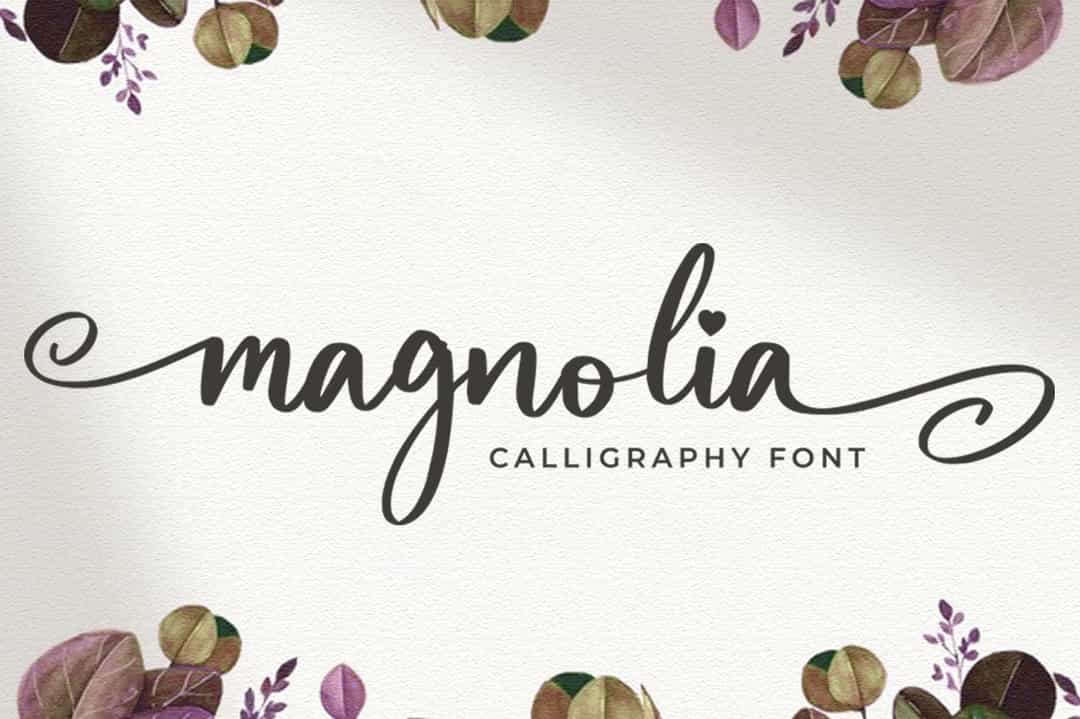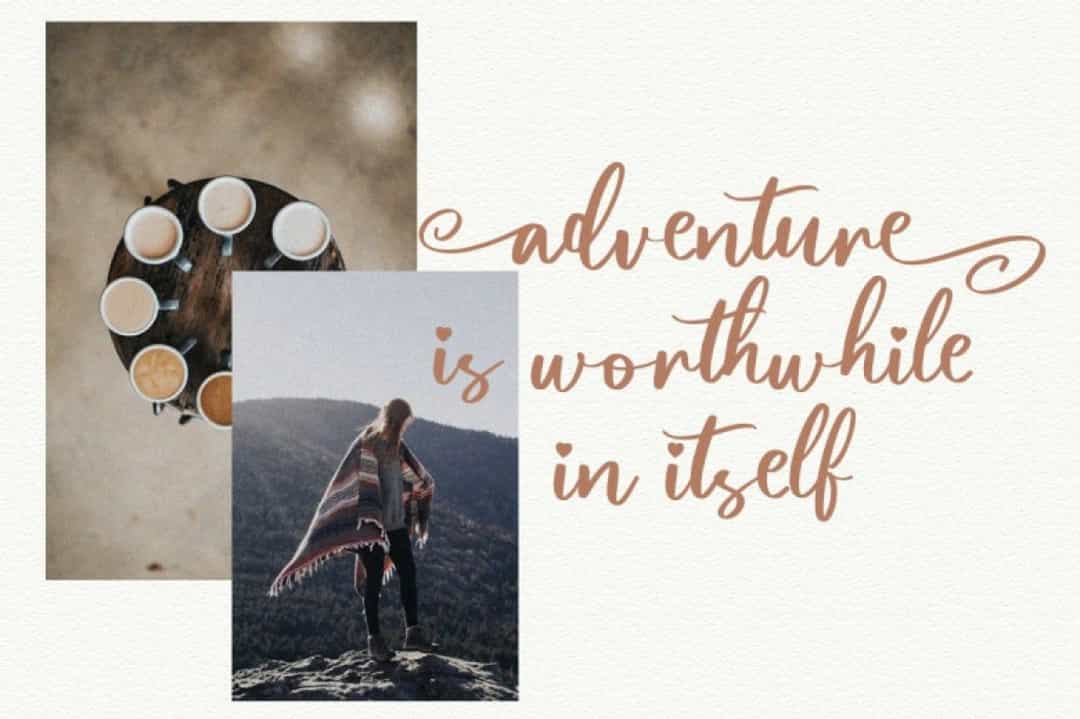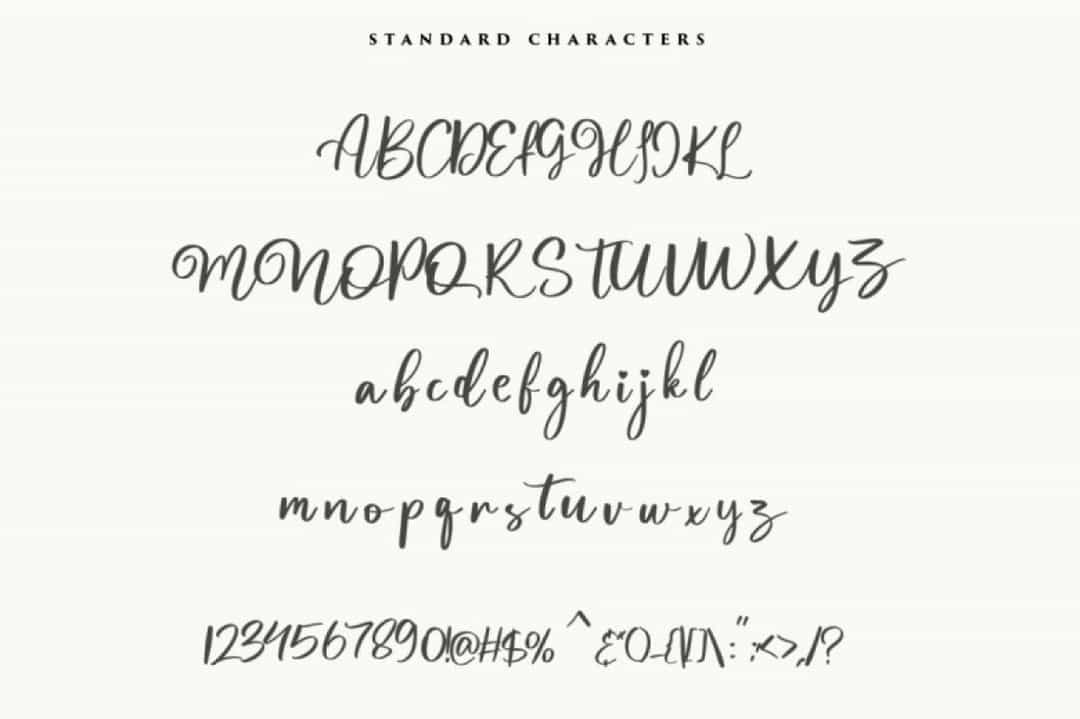
Magnolia is gorgeous script font with a smooth flow and a unique alternative font. It is inspired by sweet love modern handwriting fonts featuring ligatures as well as different styles that are ready to give your designs a distinctive style and shine to your style